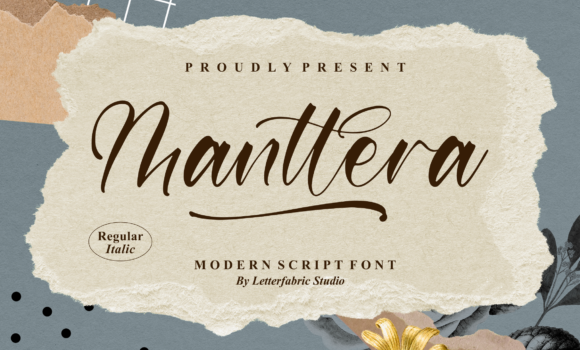
Manttera Font – Free Download Introduction to Manttera Font Manttera is a delicate and unique handwritten font. 📸 Preview Gallery 6 images 📌 Product Name Manttera Font 👤 Author Letterfabric 📂 Category Explore ⬇️ Download Manttera Font FREE Free Download